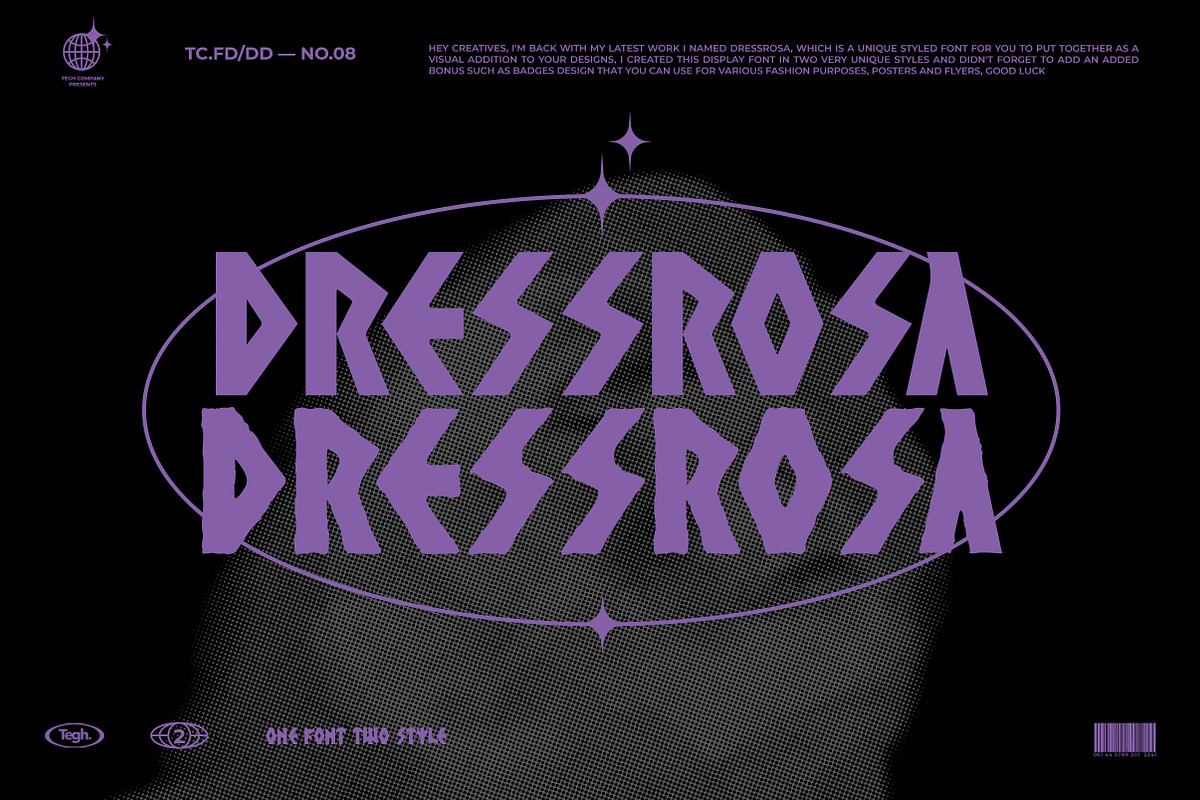
Dressrosa Font Free Download is a bold and stylish display typeface that comes with a unique bonus: a matching badge design! Perfect for logos, posters, apparel, product labels, and vintage-inspired branding, Dressrosa combines classic charm with a modern twist. Its strong, decorative letterforms are designed to grab attention and leave a lasting impression.
Whether you’re creating a retro-themed graphic or a standout brand identity, Dressrosa offers versatility and flair. The included badge enhances the font’s usability, giving your projects a cohesive and professional look. Dressrosa Font Free Download lets you explore both the font and badge in personal projects before committing to a commercial license.
Add character and creativity to your next design with Dressrosa — a display font that delivers both impact and style.